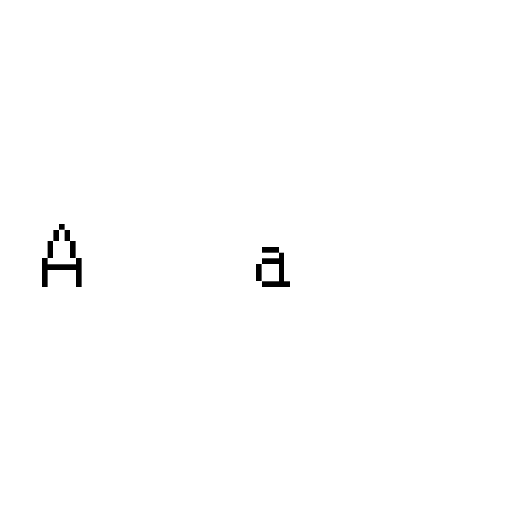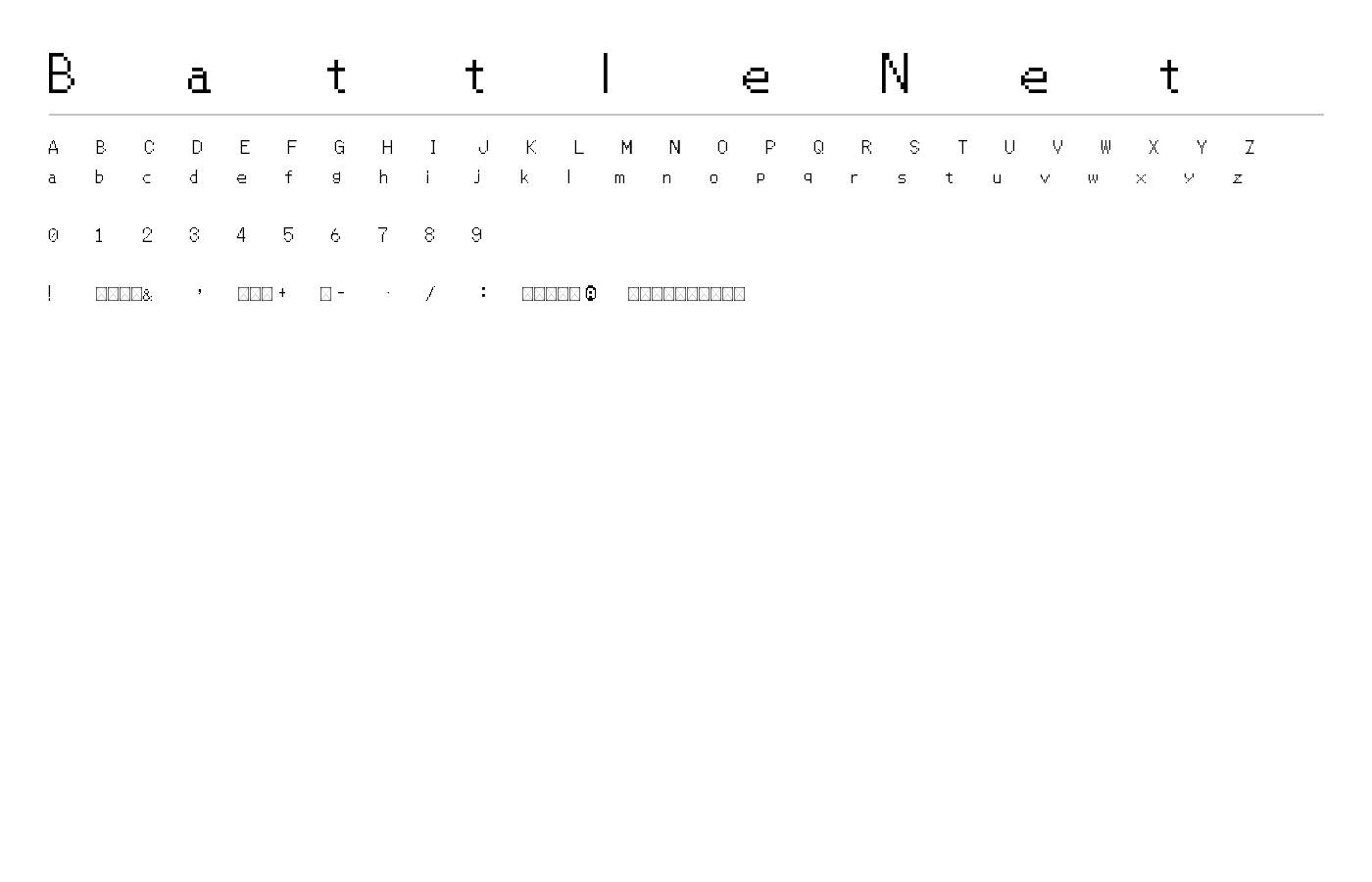
BattleNet Font is a minimalist, pixel-style sans serif typeface that evokes a retro digital or gaming aesthetic. Its light weight, mono-spaced structure, and simple geometric shapes make it ideal for tech-themed projects, classic arcade designs, or any context where a clean, compact pixel look is desired. This font works best for headlines, logos, and user interfaces where clarity and a vintage digital vibe are key.
BattleNet Font
About BattleNet Font